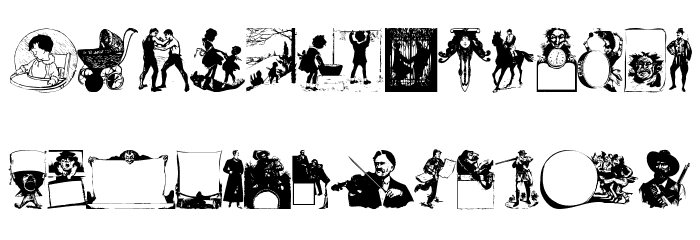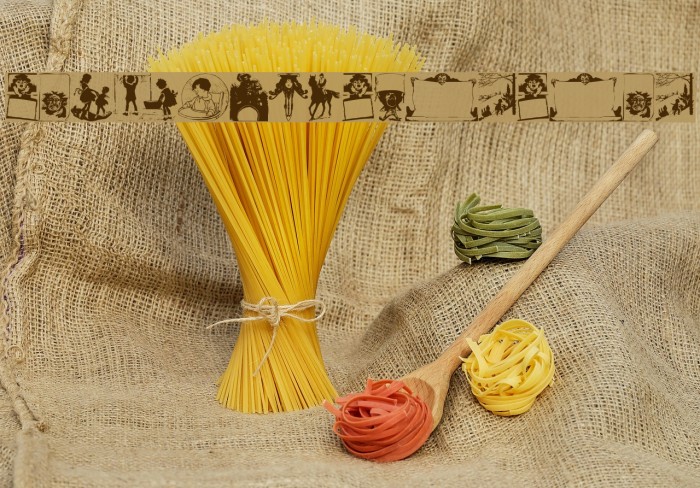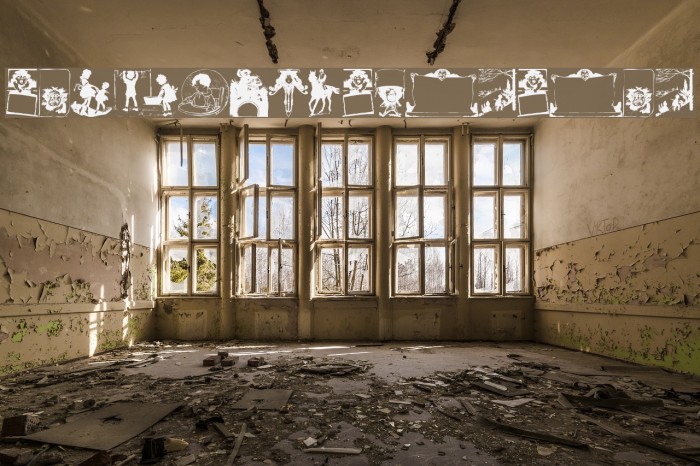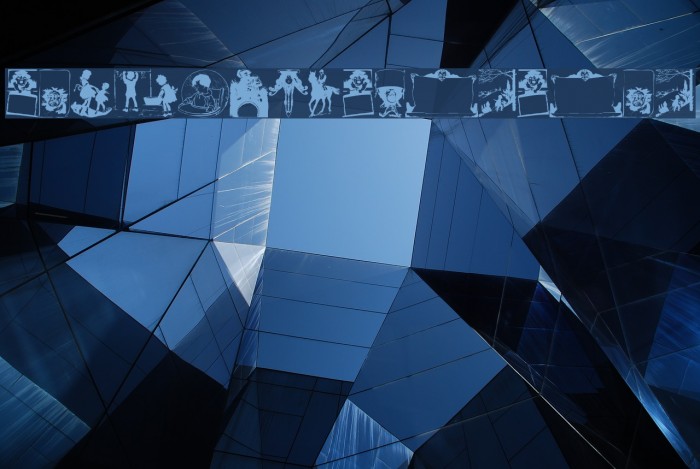
OldFashionPeople Font
This is not a traditional font but rather a collection of vintage illustrations depicting various scenes and characters. Each character is represented by a unique, detailed drawing that evokes a sense of nostalgia and historical charm. The images include figures in period clothing, children playing, musicians, and other whimsical scenes. These illustrations are highly detailed and capture the essence of a bygone era, making them suitable for projects that aim to convey a vintage or historical theme. The artwork is intricate, with a focus on storytelling through imagery rather than text.
A collection of vintage illustrations depicting nostalgic scenes and characters.
- Proposed Projects: Ideal for vintage-themed designs, historical presentations, or artistic projects requiring a nostalgic touch.
- Overall Style: Vintage
- Use Case: Artistic projects, Decorative elements, Historical themes